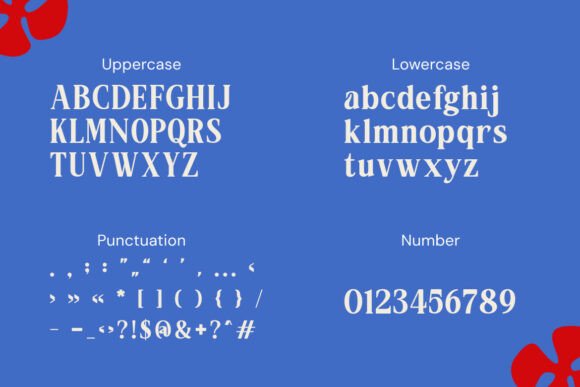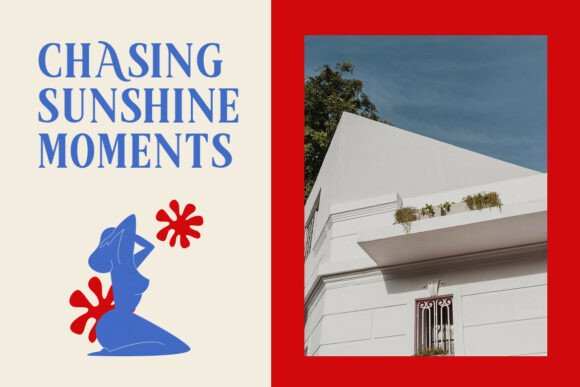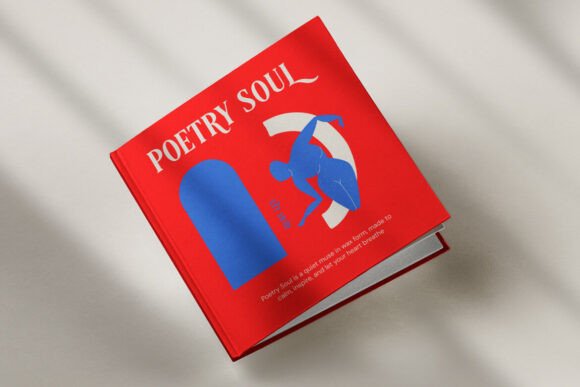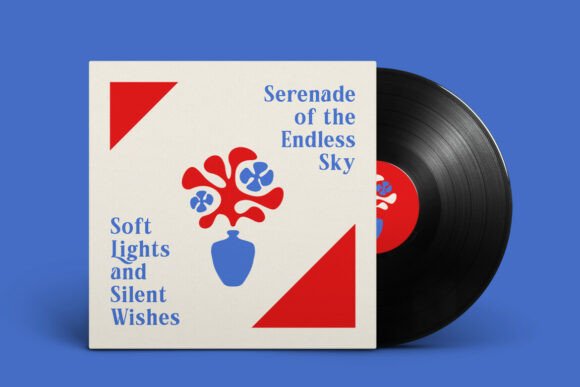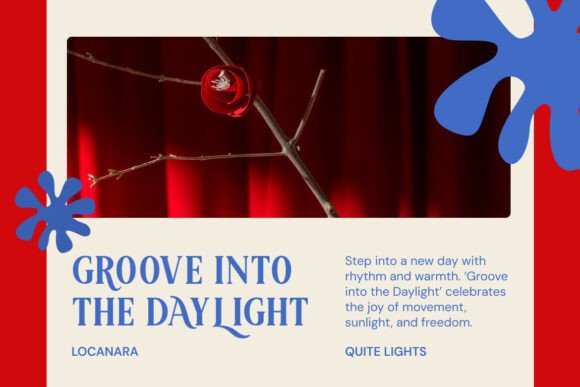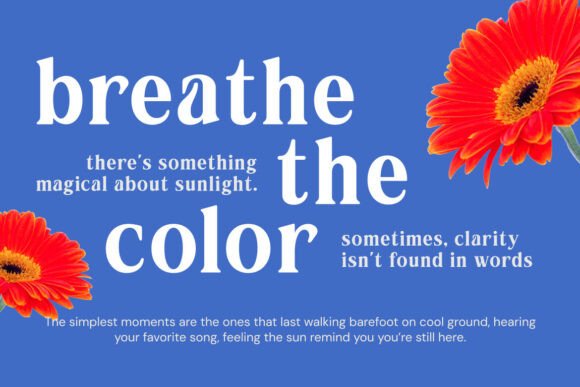
Introduction to Locanara Font
Locanara is a vibrant and expressive display serif font that merges classic formality with artistic playfulness.
Its soft curves and sharp edges bring a modern twist to traditional serif design, while the rhythmic contrast between thick and thin strokes gives it a distinctive editorial elegance Perfect for branding, lifestyle design, packaging, and magazine headlines, Locanara captures a sunlit, Mediterranean-inspired warmth that radiates charm and sophistication.
Key Features of Locanara Font